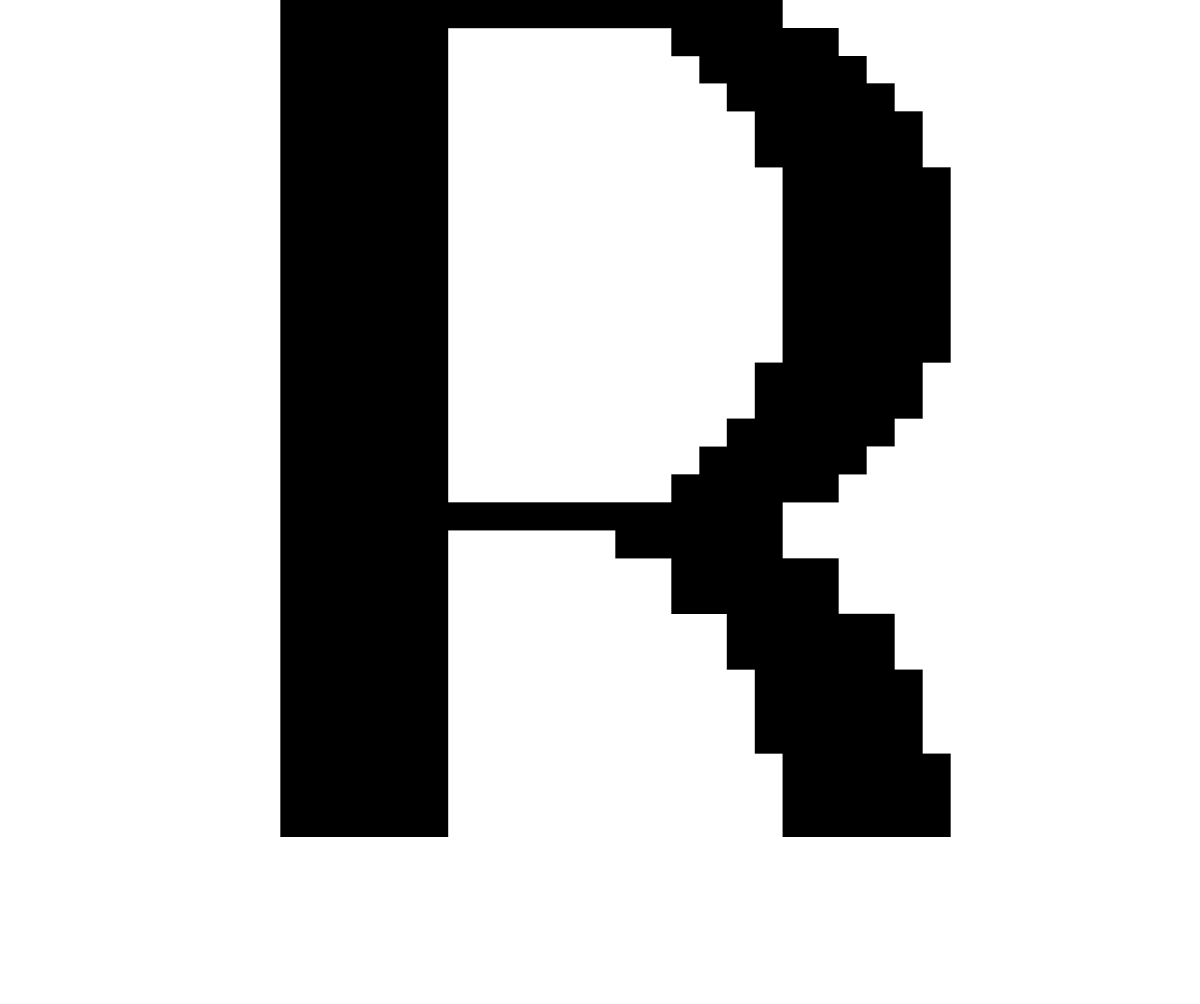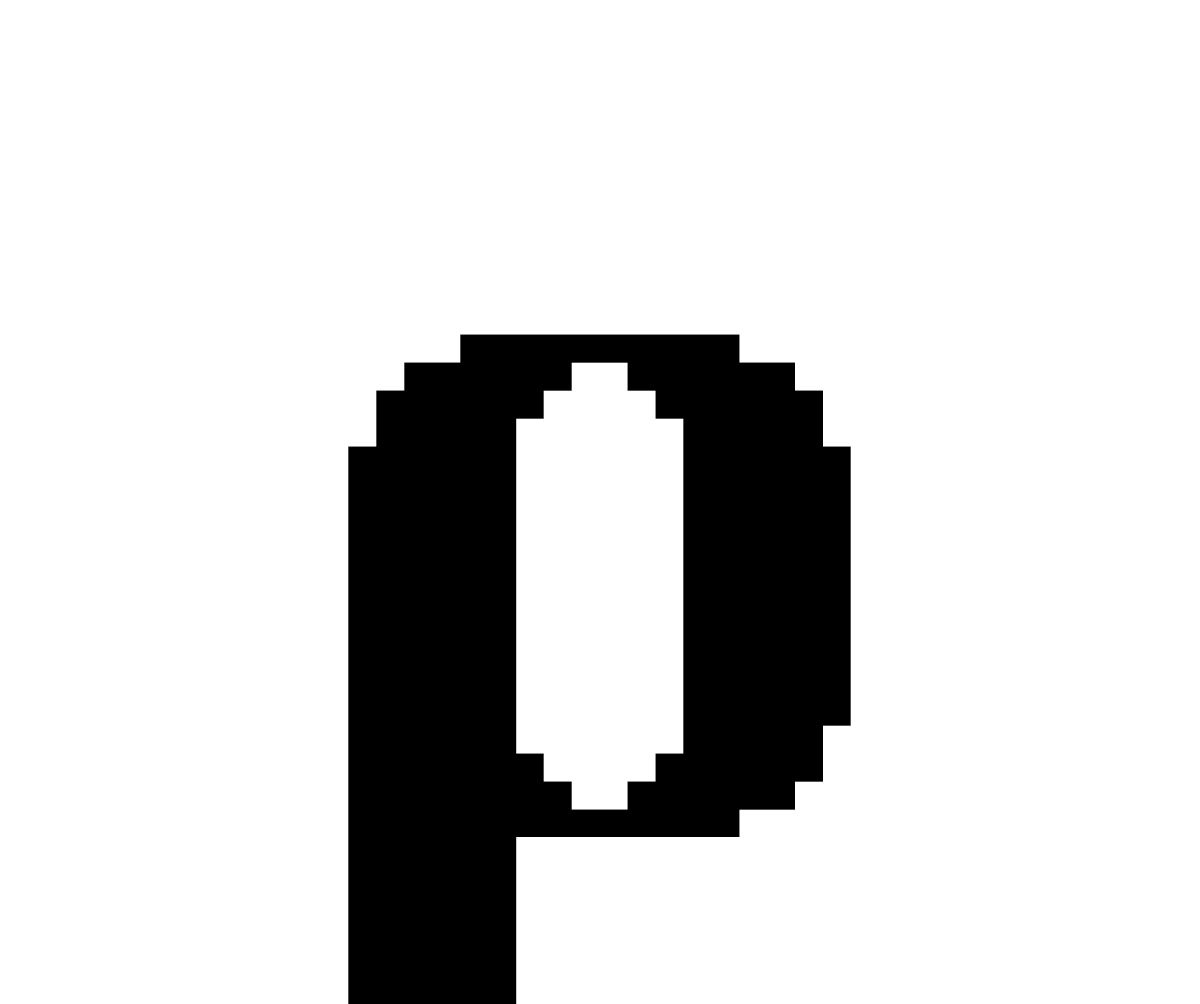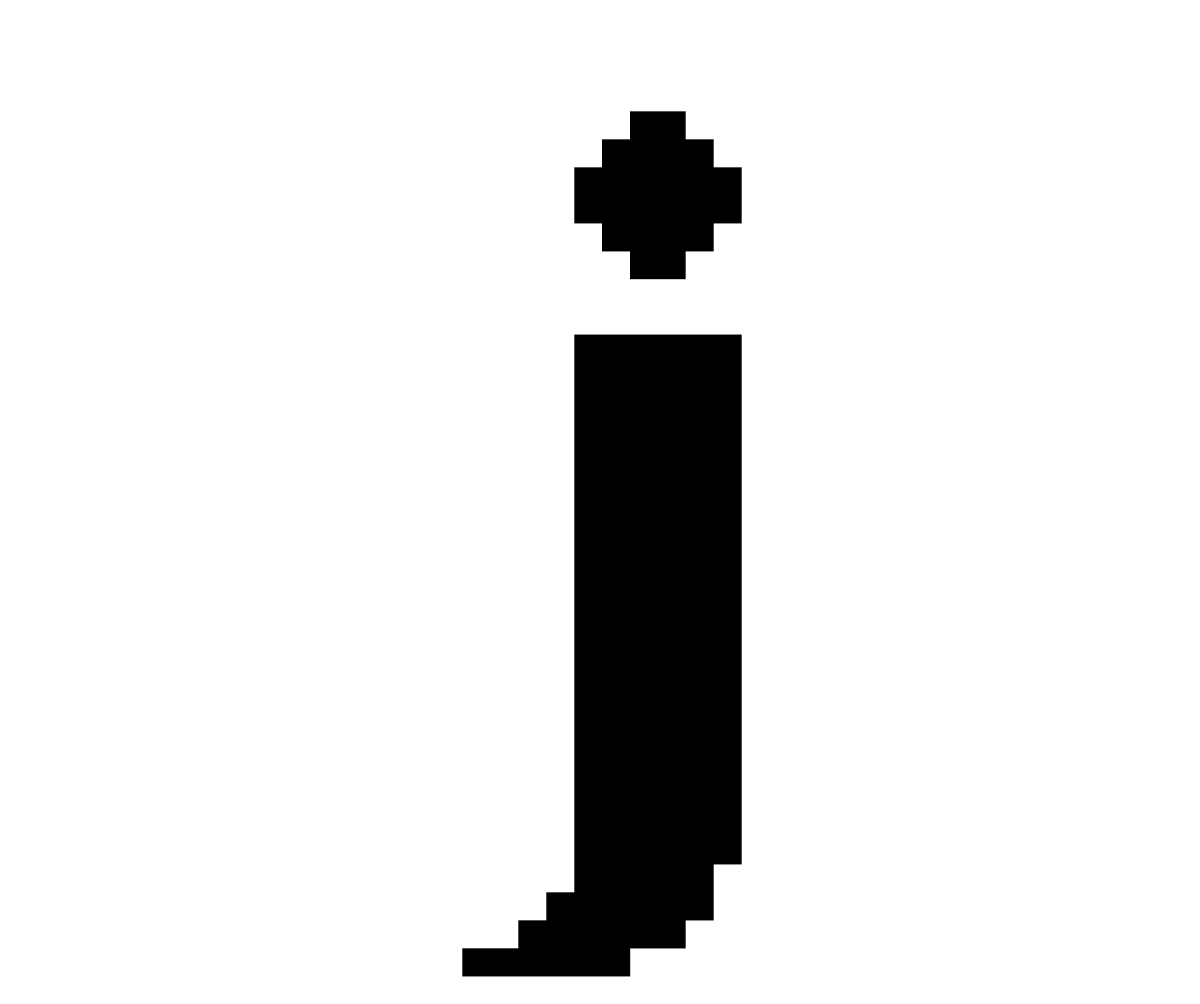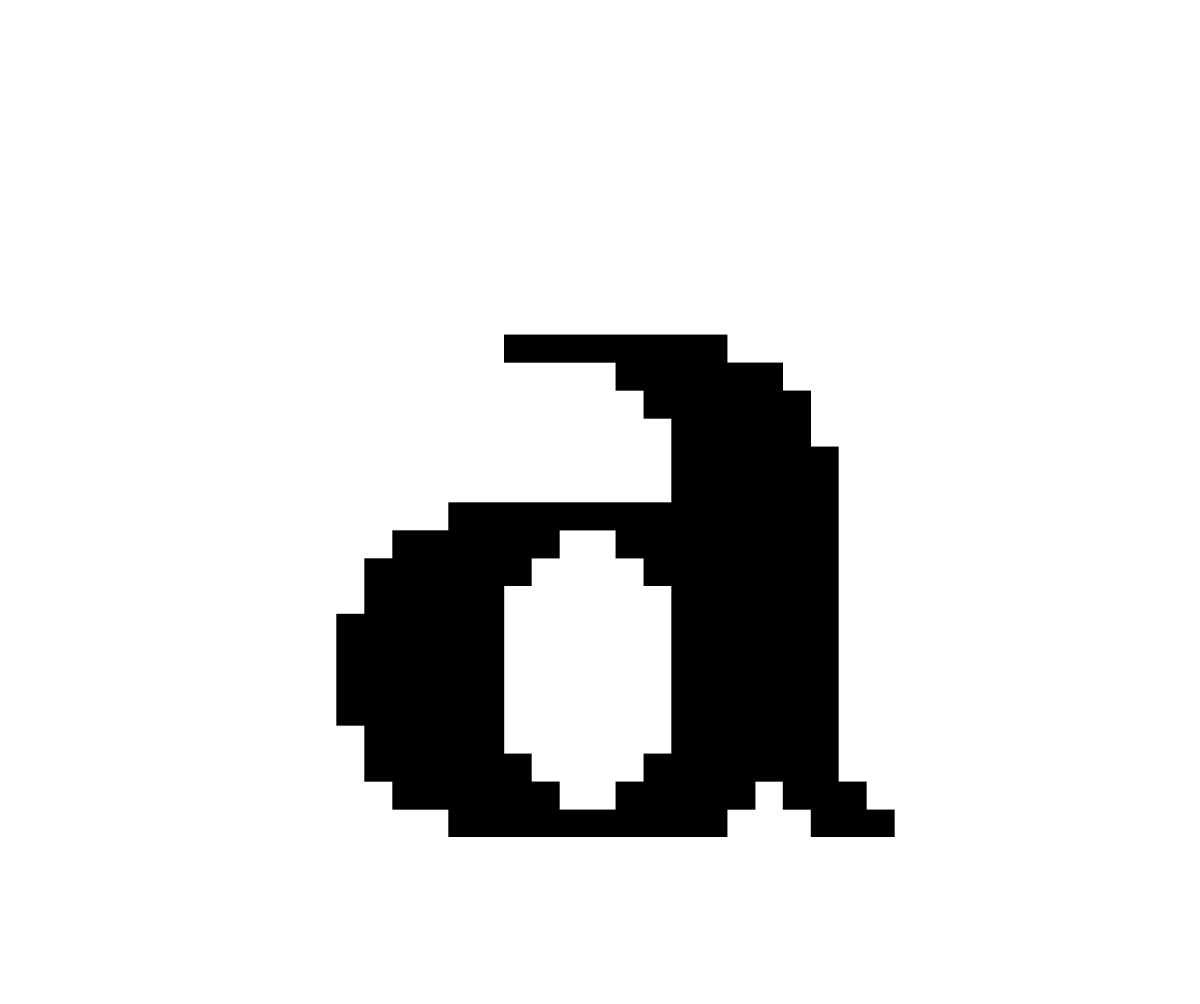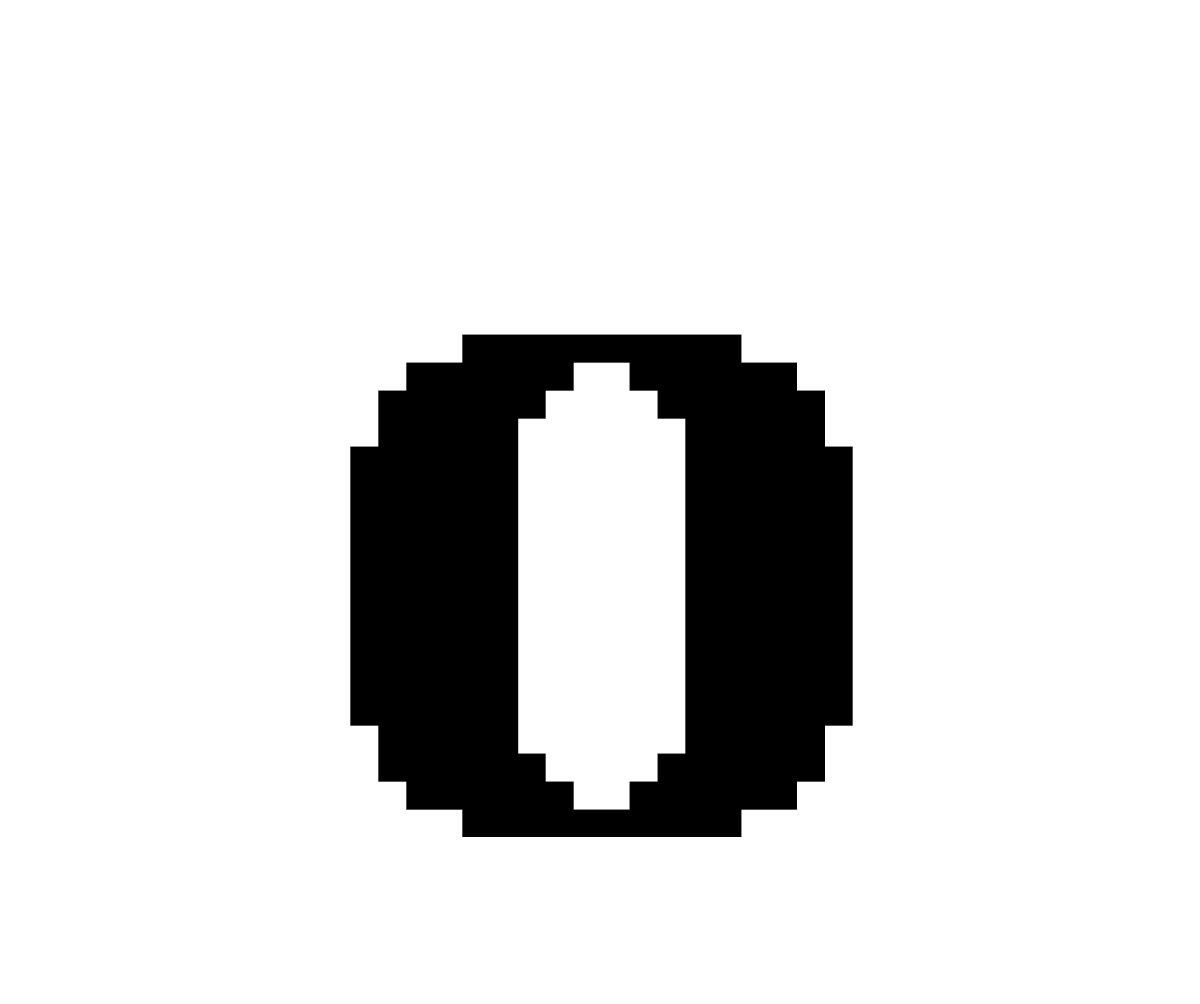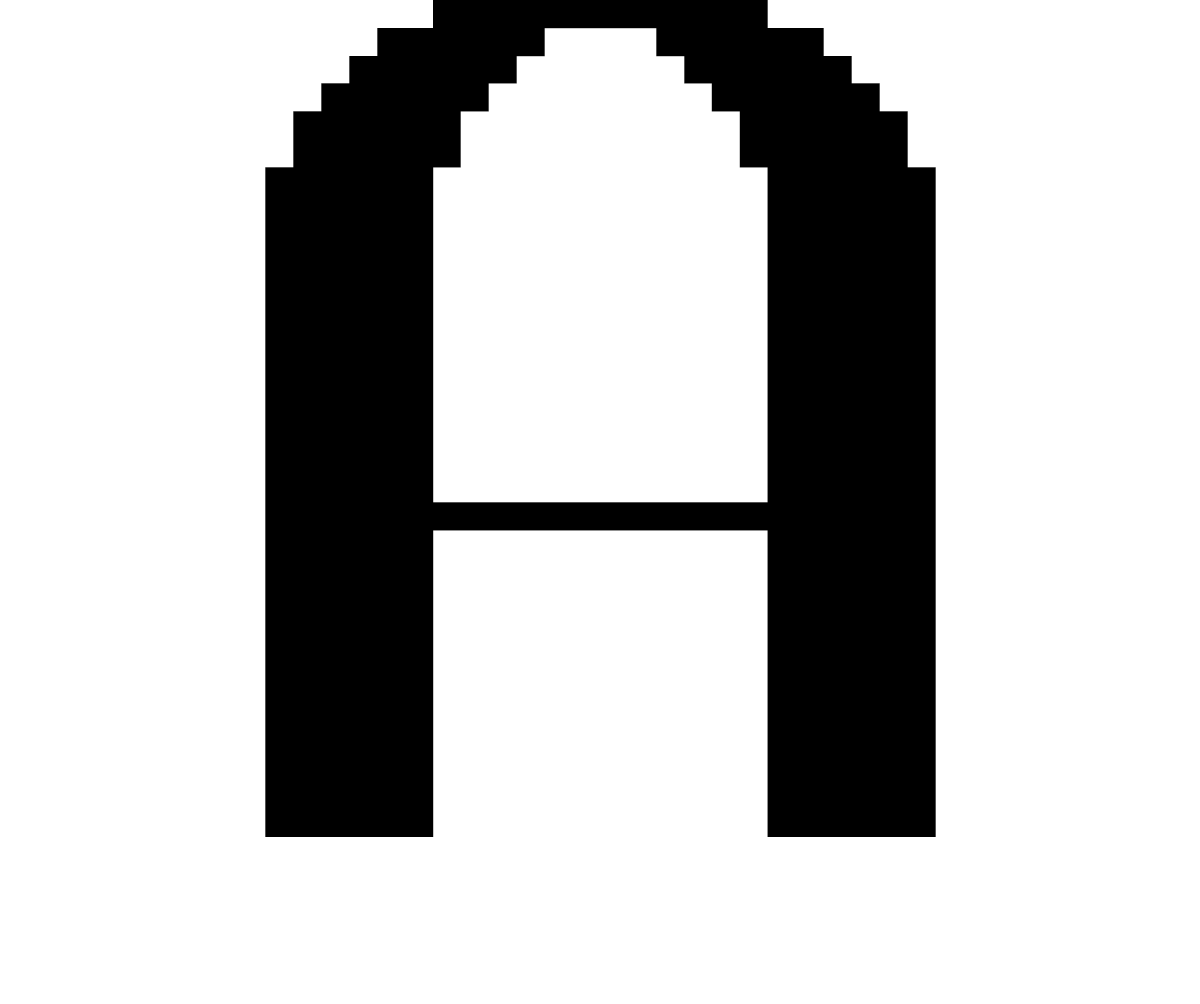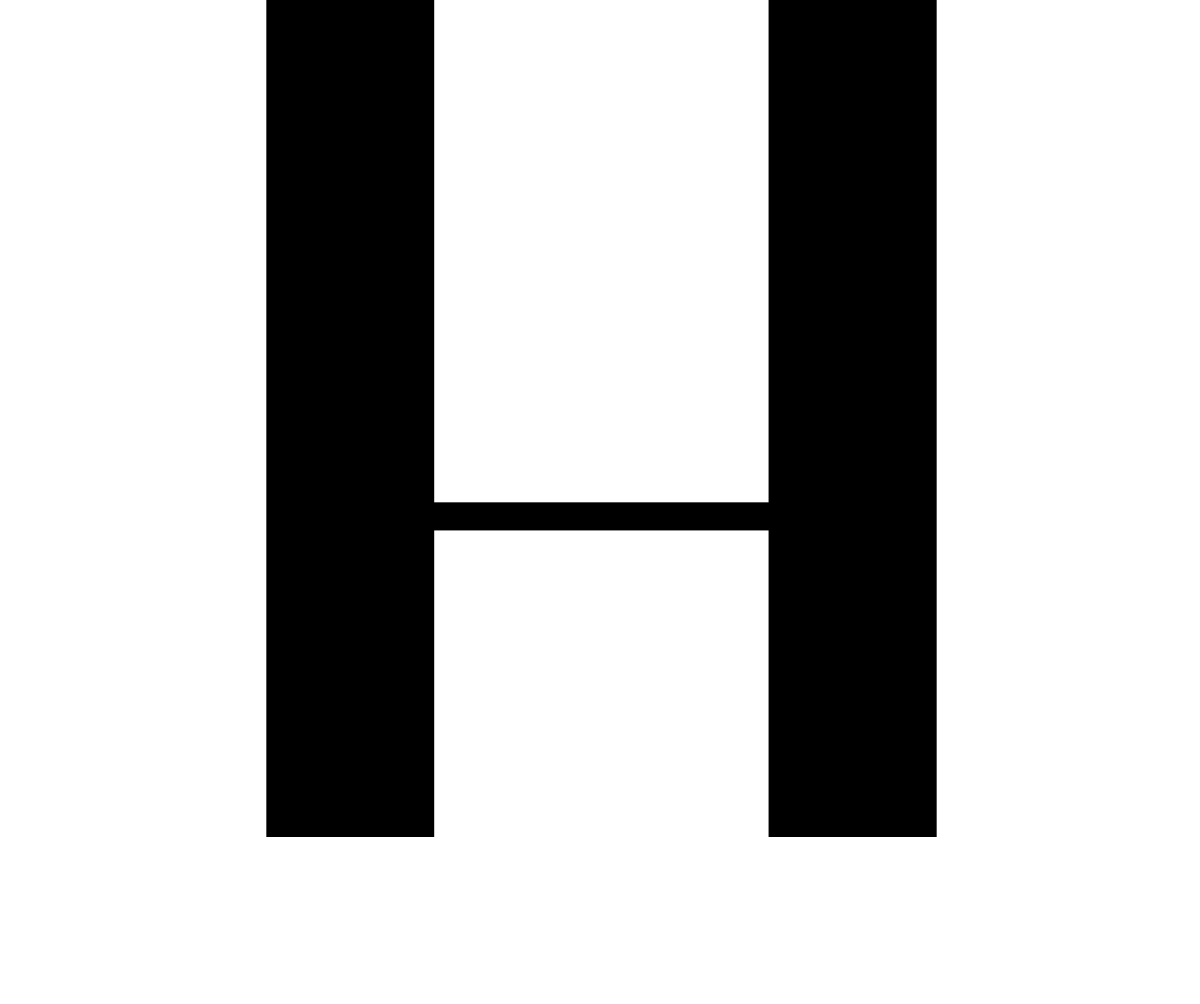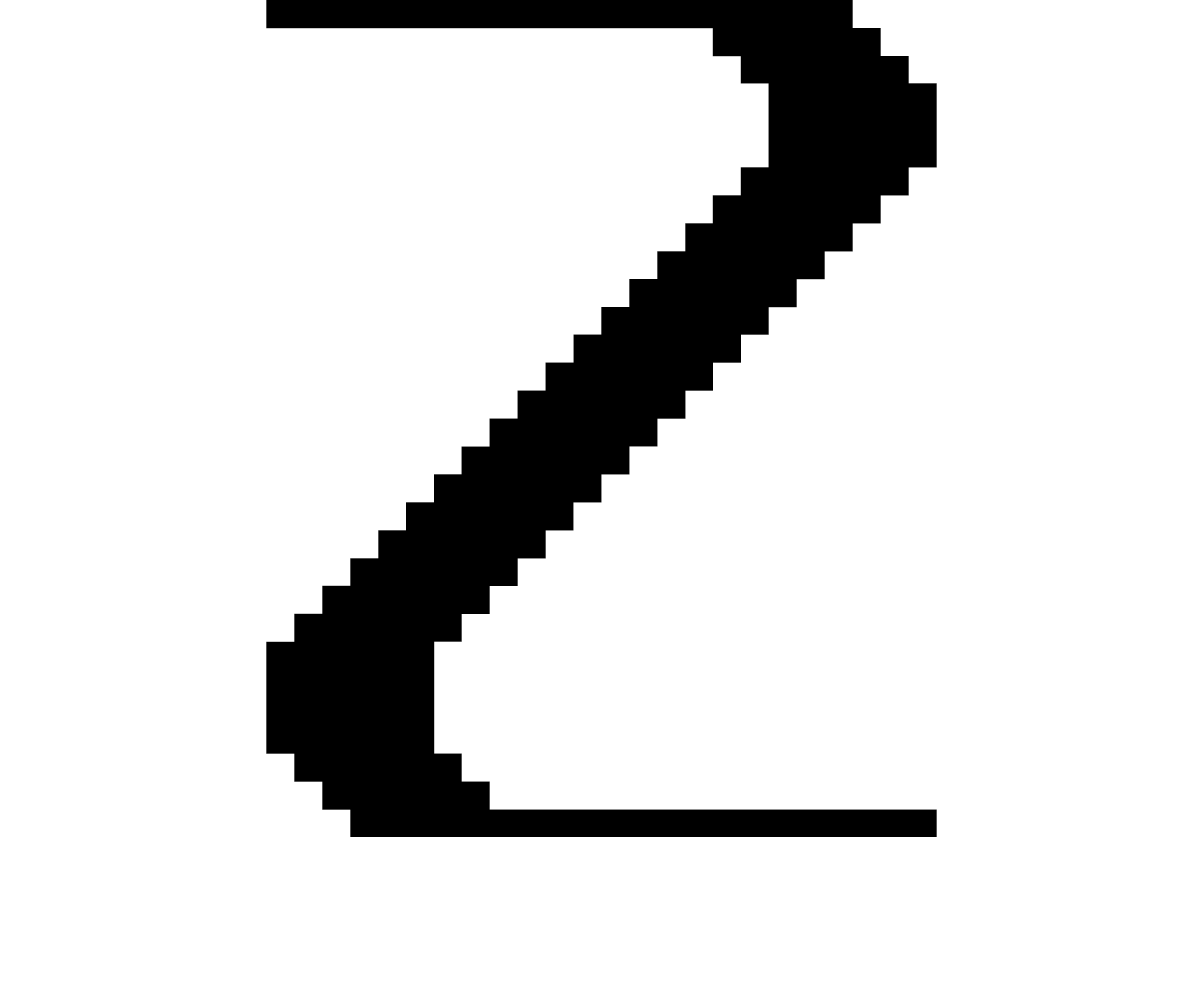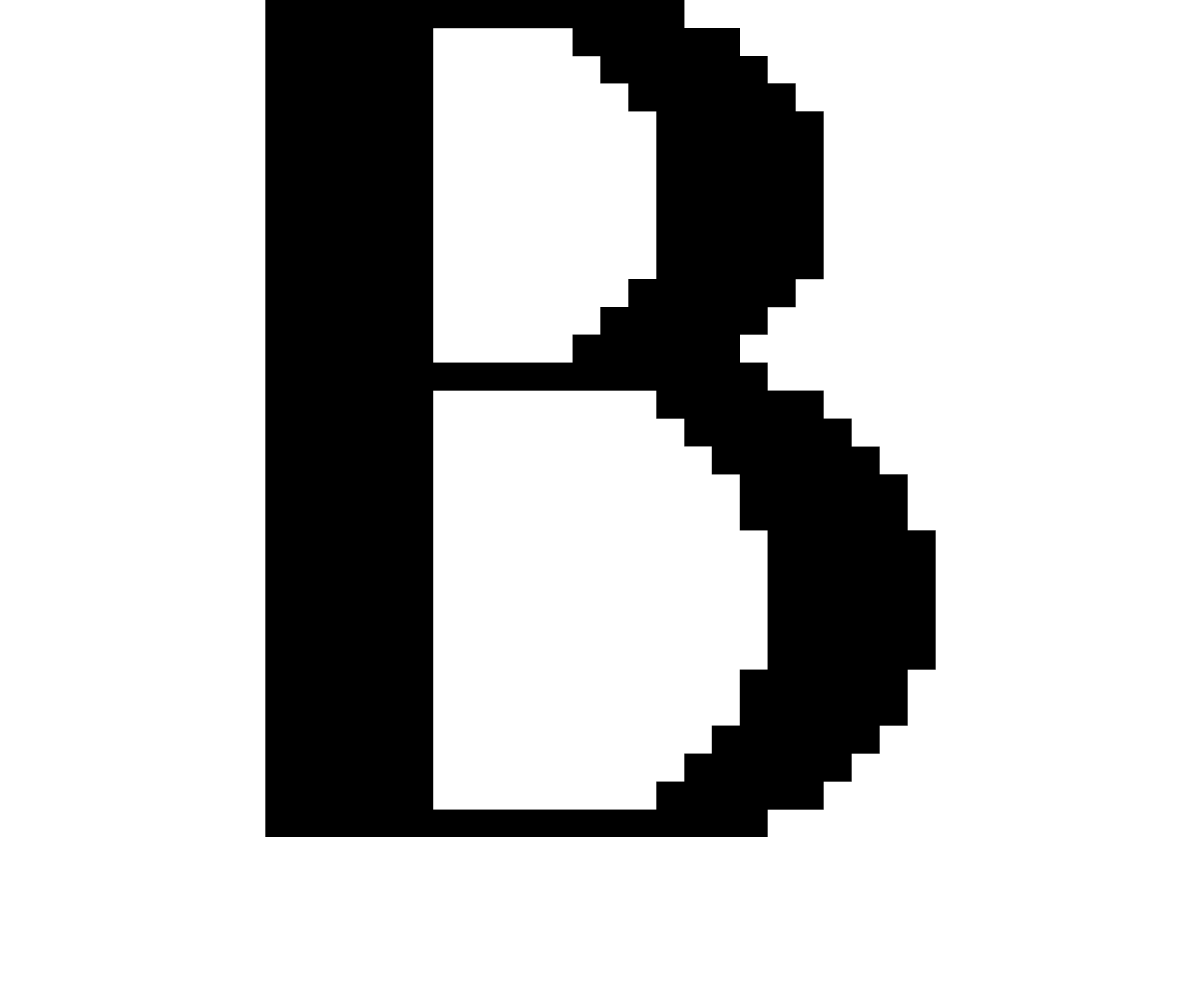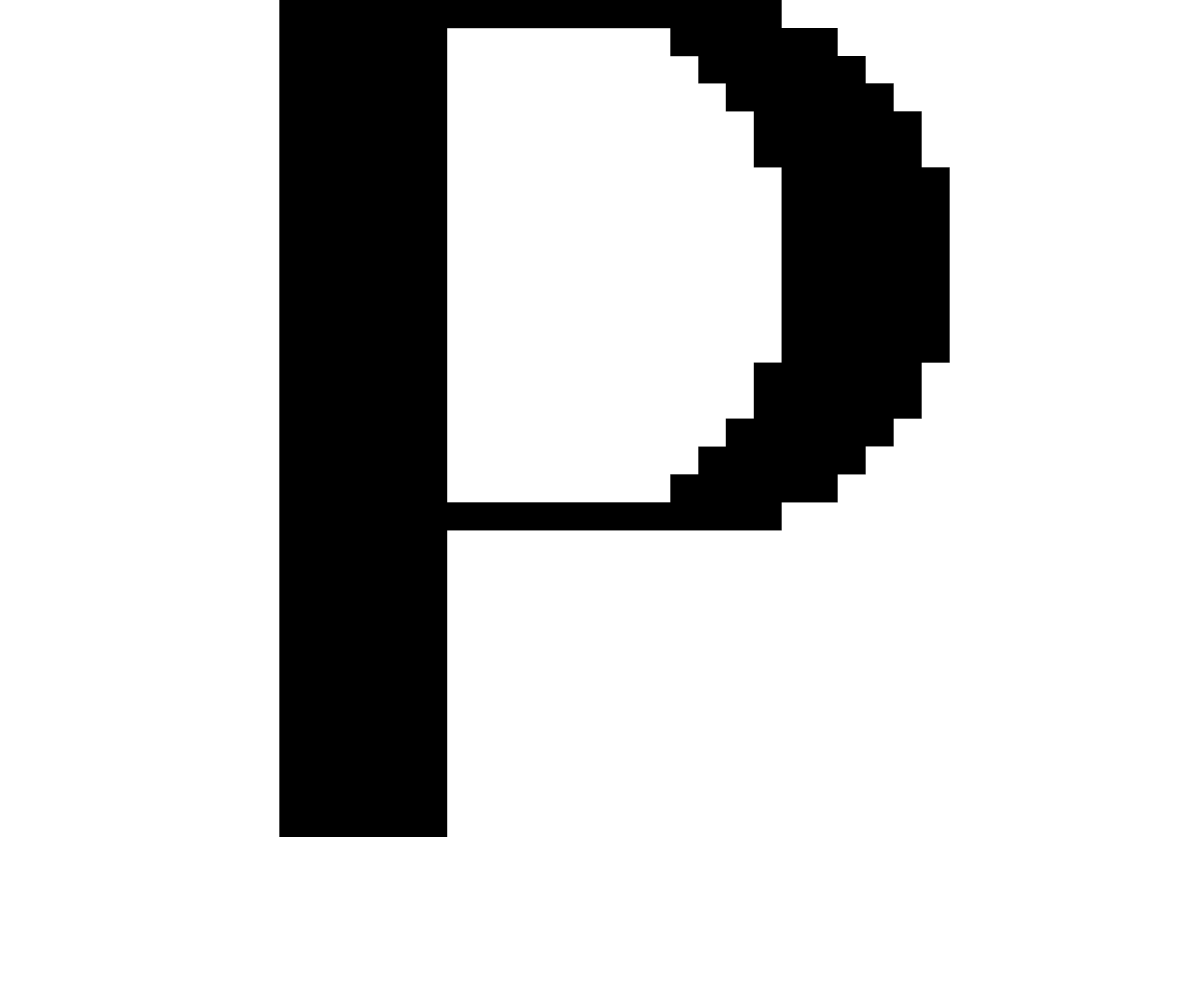
Stefont typeface
type design, poster design
With given parameters like width “normal”, weight “bold” and contrast “visible”, I created a minimalist but unique font. For digitalising the letters, the tool “fontstruct” was used.
The following poster was designed with the thought of usage in the gaming industry.